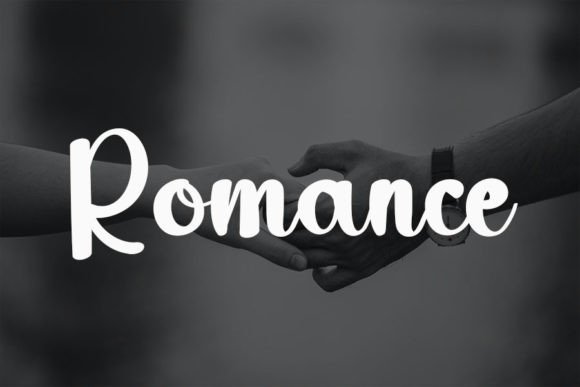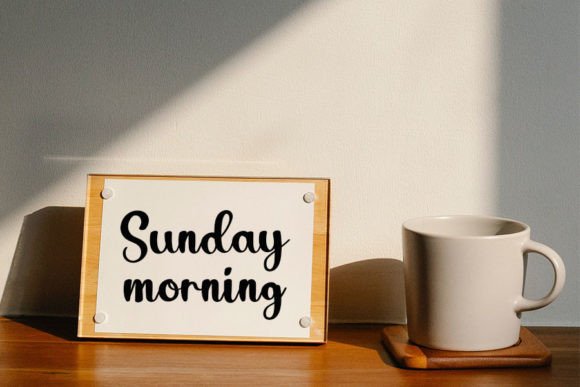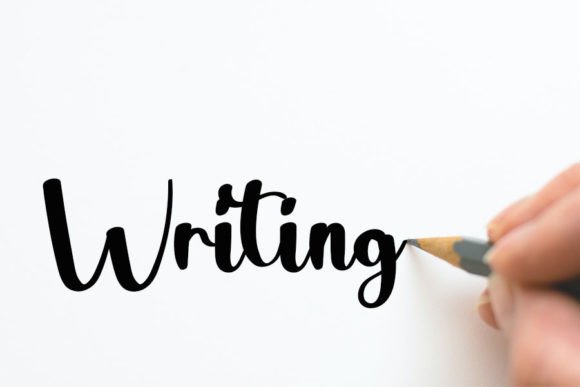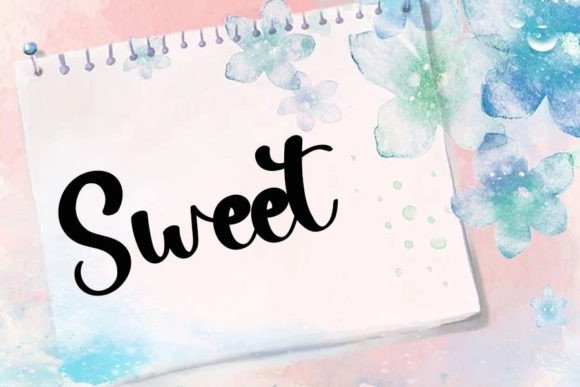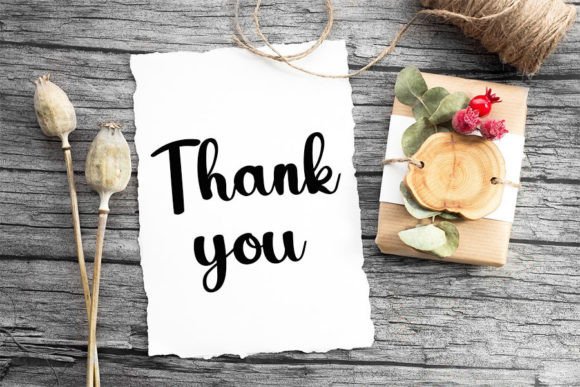
Introduction to Perfect Font
Have you ever been scrolling through your favorite design feed, and suddenly a beautiful, handwritten font catches your eye? It’s that moment when inspiration strikes, and you can’t wait to dive into your next creative project. For many designers, this is the spark that ignites their imagination and sets their ideas in motion. Whether you’re a seasoned pro or just starting out, the Perfect Font is the perfect design resource to elevate your creative vision.
With its friendly feel and high-quality aesthetic, the Perfect Font is the perfect addition to any design project. Whether you’re working on a DIY project, creating a social media graphic, or simply looking for a new font to spice up your design, this versatile font is sure to impress. And the best part? It’s a free download, making it an accessible design resource for creatives of all levels.
Key Features of Perfect Font
- High-Quality Typography: Perfect Font is designed with precision and care to deliver crisp, clear text that enhances any creative project.
- Perfect for Creative Projects: With its elegant design and versatility, Perfect Font is perfect for a wide range of creative projects, from logos and branding to graphics and publications.
- Large Character Set: Perfect Font includes a large character set, including uppercase and lowercase letters, numbers, and punctuation marks, making it suitable for both short and long texts.
Honest Review: Perfect Font
As a designer, I’m always on the lookout for the perfect font to elevate my creative projects. Perfect Font has caught my attention, and I’m here to share my honest review.
What works well: ✨ The font is incredibly versatile and can be easily customized to fit any design style. The transparent background option is a game-changer, allowing me to layer it seamlessly with other design elements. The free download is also a major plus, making it an excellent resource for designers on a budget.
Some limitations: ⚠️ While the font is high quality, I’ve noticed that it can be a bit overused in certain design contexts. Additionally, the font file size can be quite large, which may slow down loading times for some projects.
Overall, I’m impressed with Perfect Font’s potential. While it may not be perfect for every project, it’s definitely a valuable resource to have in your design toolkit. With a little creativity, you can unlock its full potential and create stunning designs.
Tips for Getting the Most Out of Perfect Font
To get the most out of Perfect Font, use it as a design resource for your creative projects. Experiment with different font sizes, colors, and styles to create unique and visually appealing designs. You can also use the font’s free download feature to access high-quality designs for your project.
Perfect Font is ideal for a variety of creative projects, including logos, business cards, brochures, and presentations. Its high-quality design and transparent background feature make it a valuable design resource for any project.